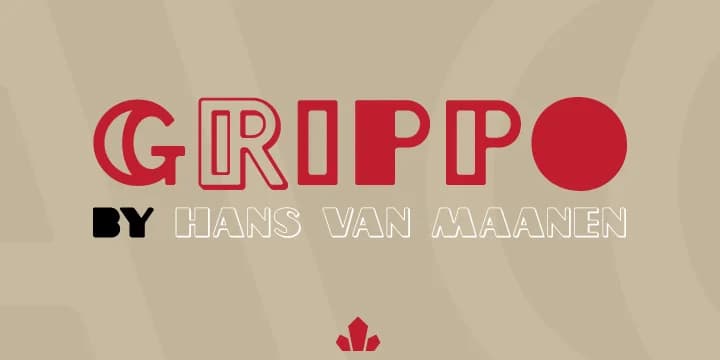
When you're laying out a retro poster or designing bold headings for a craft shop, you need letters that feel solid and tactile, not thin and fussy. Grippo, designed by Canada Type, gives you exactly that: sturdy letterforms with thick, pronounced stems that command attention. What makes Grippo special is its foundation in the 1980s aesthetic combined with a contemporary approach to layering. Instead of a single monolithic typeface, Grippo comes as a set of interchangeable fonts where you can stack the layers to create depth, shadow effects, and multi-color dimension that bring real richness to your work.
The layering system opens up serious creative range. You can use Grippo for vintage record cover designs, retro event posters, hand-lettered product packaging, or playful boutique branding where a standard font would feel too generic. Every doubled stroke means letters have built-in presence and weight, making it perform beautifully whether you're working at large display sizes or bringing it into headlines. Stack the layers for color effects, or run a single layer clean and simple. Nothing locks you into one approach.
GRIPPO Font is a decorative font that shines as a display or heading face. Pair it with a clean sans-serif or serif font for body text β the contrast creates a clear hierarchy while the two styles stay balanced and easy to read.